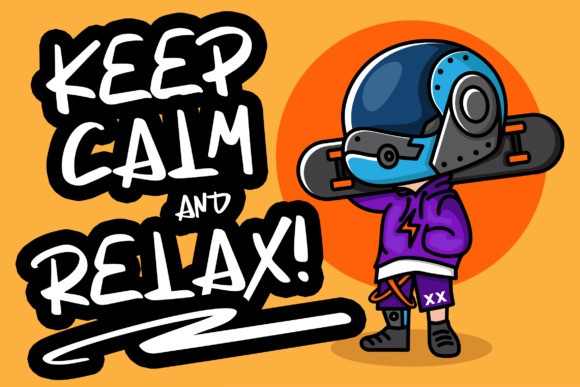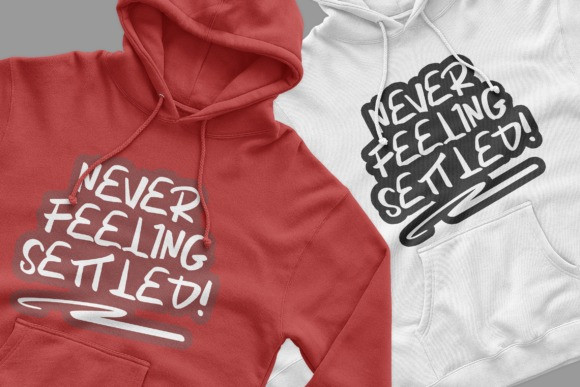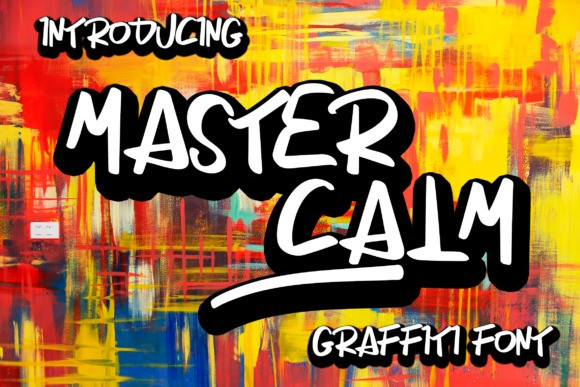
Master Calm Font
Master Calm Display Font is a quirky and awesome graffiti display font. It has a unique style that makes it perfect for any creative project that requires a graffiti look! Try its uniqueness on any of your project designs!